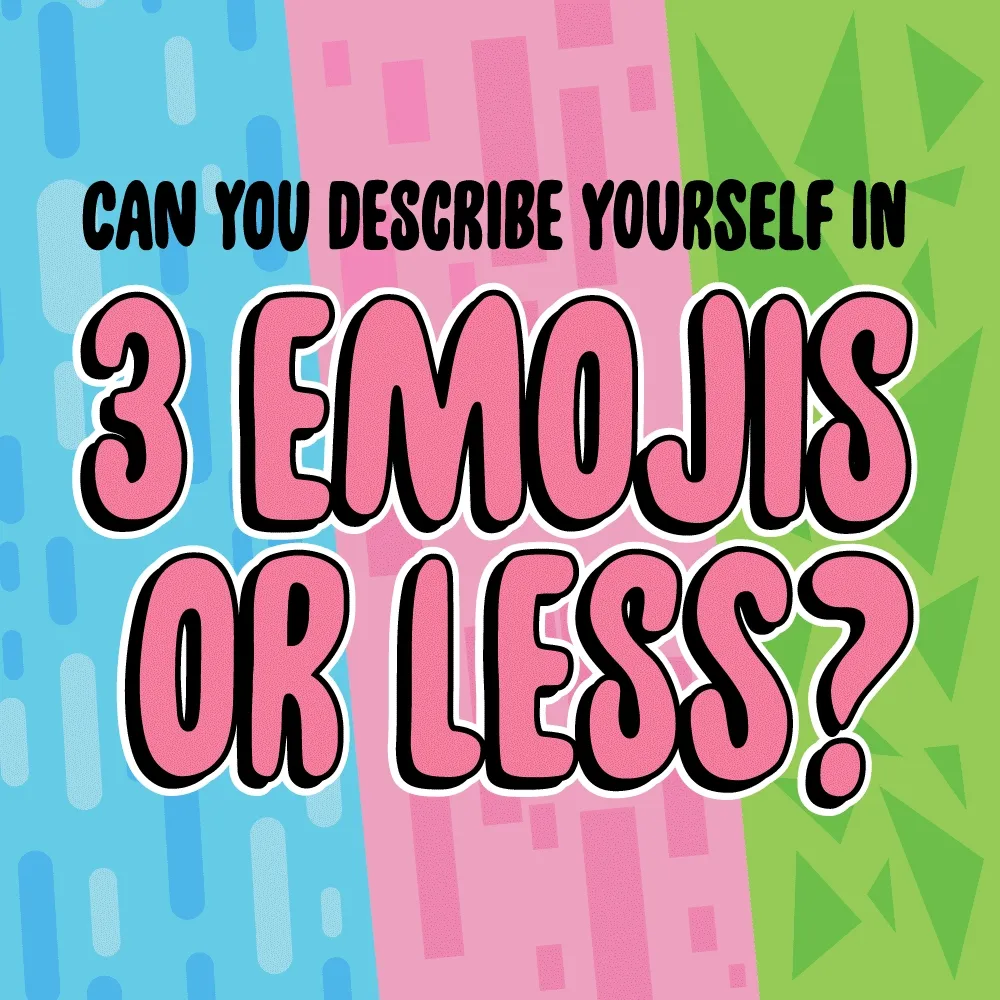
Fonts in Use: Unpack
Powerpuff Girls
Unpack font is used in countless productions related to the Girls: websites, games, books, apparel, toys and many, many, many, many others. It’s also used in the charming episode titles of the Powerpuff Girls TV series that aired from 2016 to 2019.